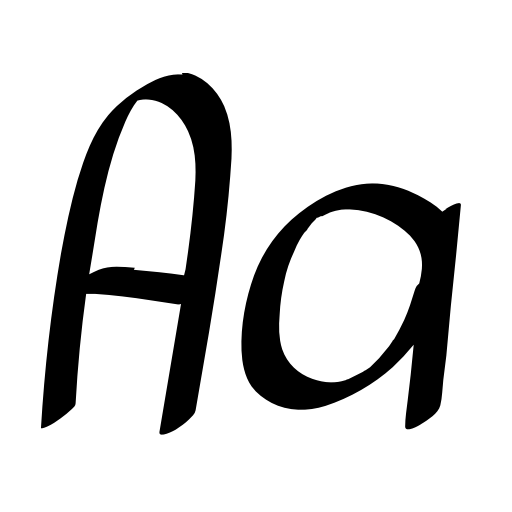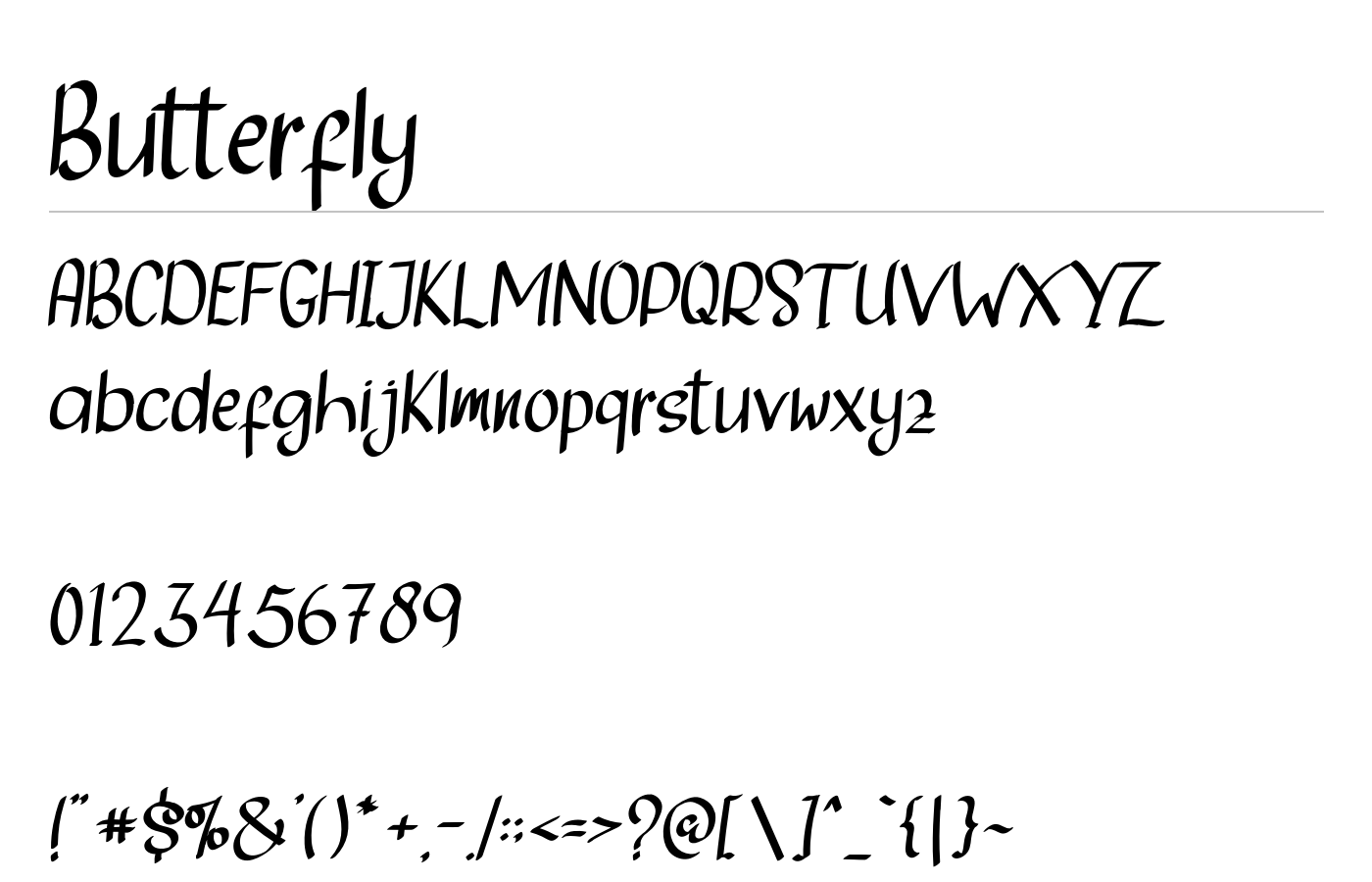
Butterfly Font is a playful and elegant serif typeface with a distinctive hand-drawn feel, featuring medium contrast strokes and gently curved serifs that add a soft, artistic touch. Its tall, narrow letterforms and unique stylistic details make it perfect for creative logos, invitations, and branding that aim to convey charm and personality. This font works well in headlines and decorative text where a whimsical yet refined impression is desired.
Butterfly Font